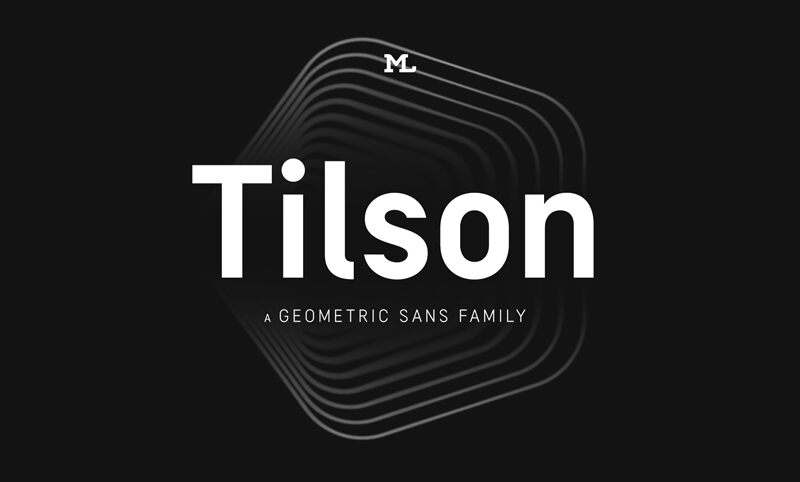
Tilson Bold font by Marc Lohner is a striking geometric sans serif free font. Its modern design and clean lines offer a minimalistic aesthetic, making it perfect for professional projects that require readability and simplicity.
Use this font for creating captivating headlines, logos, labels, banners, posters, packaging designs, business cards, digital advertisements, branding projects across different platforms. A good minimalistic font choice can take any design project to the next level.